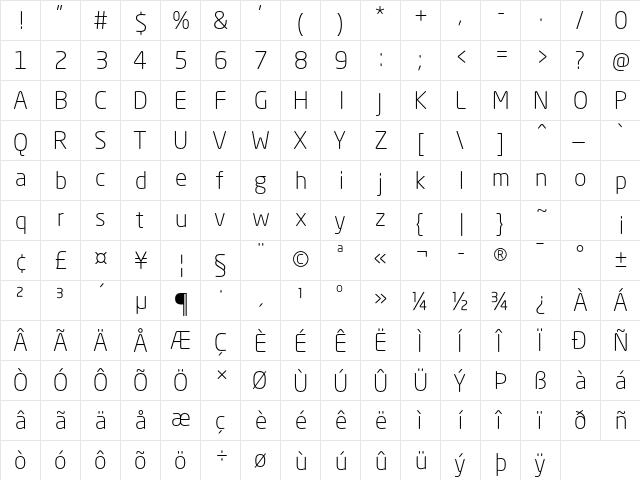
Neo Sans Std Light
Design Context for Neo Sans Std Typeface
Neo Sans Std is a composed and adaptable typeface that performs quietly and consistently across a wide range of design contexts. The delicate stroke weight brings airiness and refinement to layouts.